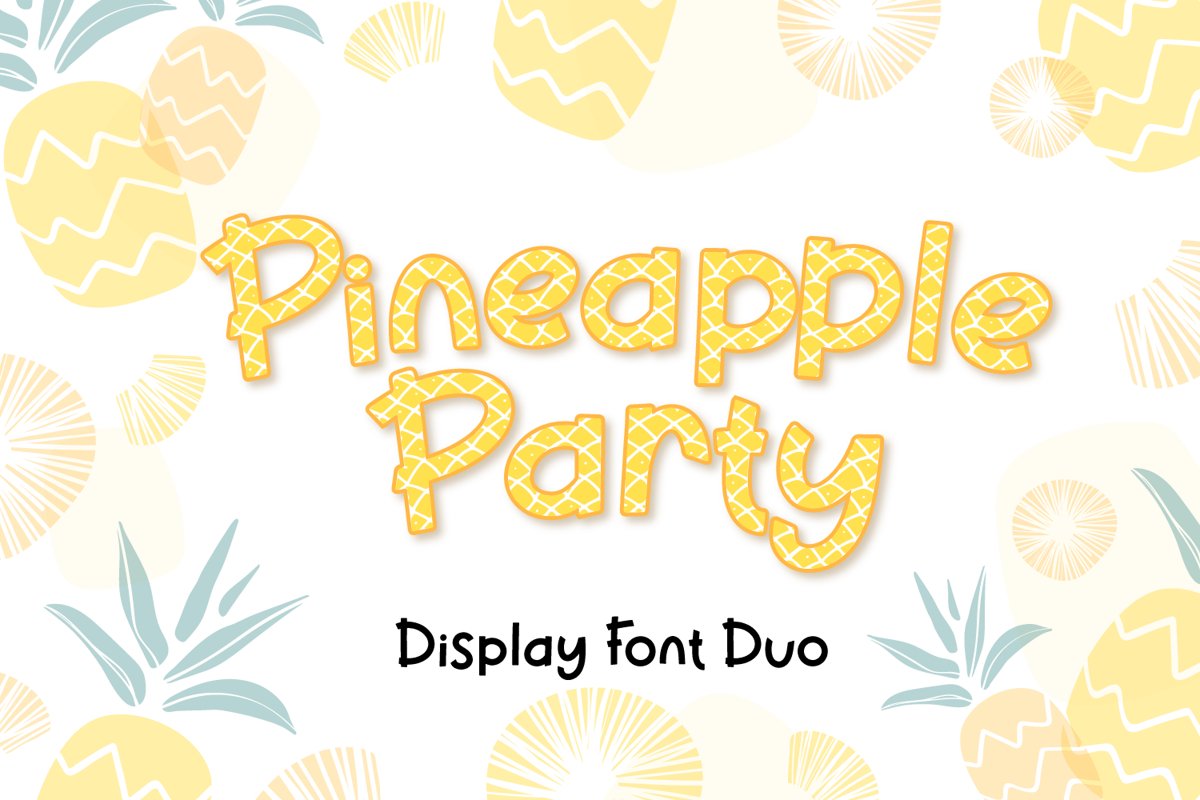
Pineapple Party
Pineapple Party is display font of pineapple texture, come up with two font regular and display.
Pineapple Party is perfect for branding, logo, invitation, stationery, social media post, product packaging, merchandise,
blog design, game titles, cute style design, Book/Cover Title and more.
- include 6 ligatures